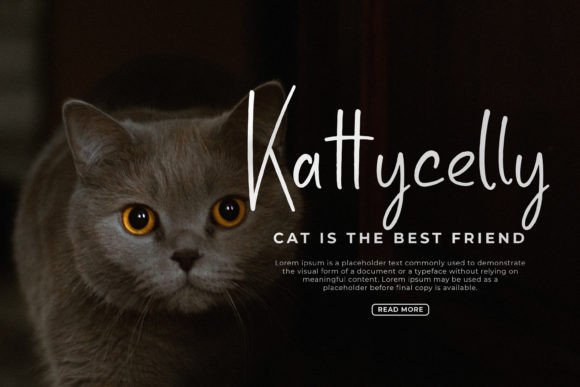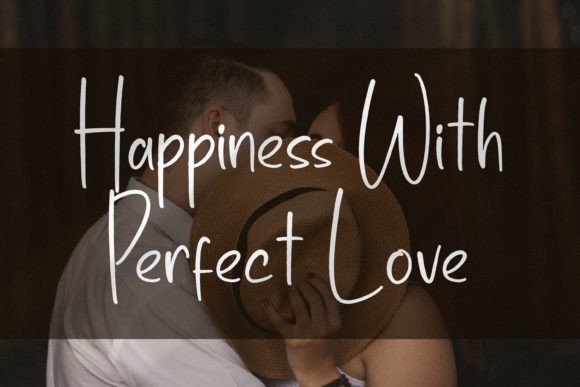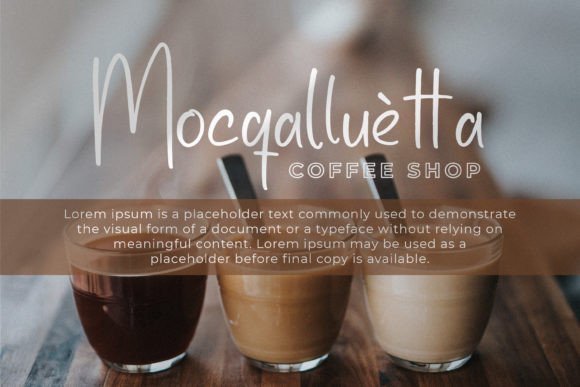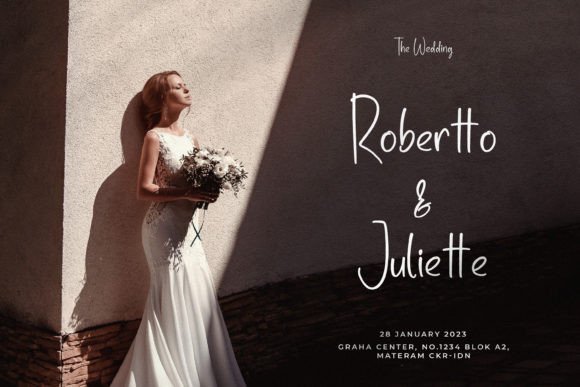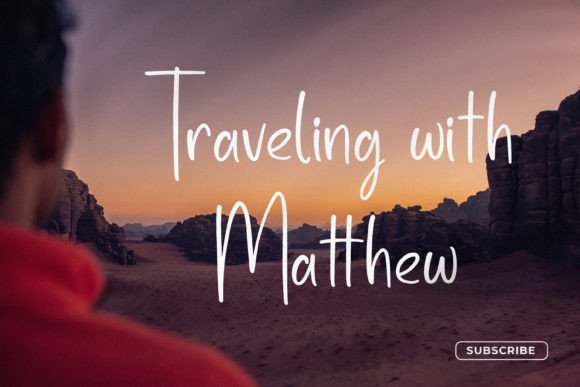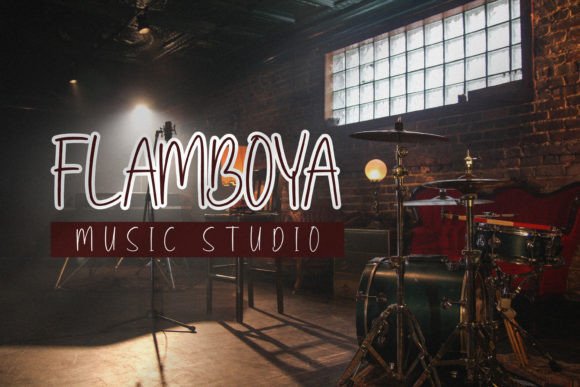
Ballenotty Font: Elevate Your Designs with Luxury and Elegance
In the world of design, typography plays a crucial role in conveying the tone and personality of a brand or project. When it comes to creating luxury designs, the right font can make all the difference. This is where Ballenotty Font comes in – a premium handwritten font designed to add a touch of elegance and sophistication to any project.
What is Ballenotty Font?
Ballenotty Font is a high-end handwritten font that exudes luxury and refinement. Its unique, flowing script is perfect for designers and crafters looking to add a personal touch to their work. Whether you’re creating logos, branding projects, homewares designs, product packaging, or any other luxury item, Ballenotty Font is the perfect choice.
Perfect for Luxury Projects
Ballenotty Font is versatile and can be used for a wide range of luxury projects, including:
- Logos and branding projects: Create a lasting impression with a custom logo that showcases your brand’s personality and style.
- Homewares designs: Add a touch of elegance to your home decor designs, from wall art to kitchenware.
- Product packaging: Make your products stand out with beautiful, custom packaging that reflects your brand’s luxury image.
- Mugs and ceramics: Create stunning, one-of-a-kind designs for mugs, plates, and other ceramics.
- Quotes and posters: Add a touch of sophistication to your inspirational quotes and posters.
- Shopping bags and t-shirts: Create eye-catching designs for shopping bags and t-shirts that showcase your brand’s style.
- Covers books and business cards: Elevate your book covers and business cards with a professional, high-end design.
- Invitation cards and greeting cards: Create beautiful, custom cards for special occasions.
- Labels and photography: Add a touch of luxury to your labels and photography projects.
- Watermarks and special events: Use Ballenotty Font to create custom watermarks and event designs that leave a lasting impression.
Why Choose Ballenotty Font?
So, why should you choose Ballenotty Font for your luxury projects? Here are just a few reasons:
- Unique and elegant design: Ballenotty Font features a unique, handwritten design that adds a touch of sophistication to any project.
- High-quality and versatile: This premium font is designed to be versatile and can be used for a wide range of projects, from logos to packaging.
- Perfect for luxury brands: Ballenotty Font is designed specifically for luxury brands and designers who require high-end typography.
Tips for Using Ballenotty Font
To get the most out of Ballenotty Font, here are a few tips:
- Use it sparingly: Ballenotty Font is a statement font, so use it sparingly to make a lasting impression.
- Pair it with neutral colors: Pair Ballenotty Font with neutral colors to let the font be the focal point.
- Experiment with different sizes: Experiment with different font sizes to create visual interest and hierarchy.
- Use it consistently: Use Ballenotty Font consistently across all your luxury projects to create a cohesive brand image.
In conclusion, Ballenotty Font is a premium handwritten font that is perfect for luxury designers and crafters. Its unique, elegant design makes it perfect for a wide range of luxury projects, from logos to packaging. With its high-quality and versatile design, Ballenotty Font is sure to elevate your designs and add a touch of sophistication to any project.